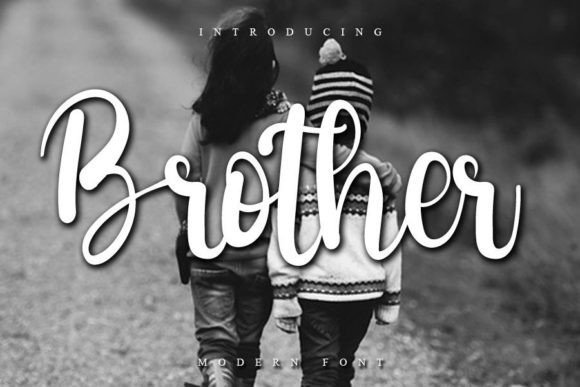
The Perfect Combination: Design and Innovation
As a designer, have you ever stumbled upon a font that makes your ideas come alive? A font that perfectly complements your creativity, elevating your designs to new heights? For me, that moment was when I discovered the Brother Font. This beautiful font is a game-changer for designers, offering a fresh and unique touch to any project.
The Brother Font is designed to be versatile, suitable for a wide range of design purposes such as YouTube banners, cover logo mockups, wedding invitations, ID cards, flyers, and more. Its simplicity and uniqueness make it an invaluable asset for designers looking to take their business to the next level.
With the Brother Font, you’ll be able to give your designs a professional and eye-catching look, setting you apart from the competition and driving your business forward.
Key Features of Brother Font
- Unique Character Set: Brother Font features a unique character set that includes a wide range of symbols, glyphs, and ligatures, making it ideal for creative and technical applications.
- Language Support: Brother Font supports a wide range of languages, including Latin, Cyrillic, Greek, and many non-Latin scripts, making it a versatile choice for global applications.
- Font Style: Brother Font is available in multiple styles, including regular, bold, italic, and bold-italic, allowing users to customize the font to suit their needs.
- Scalability: Brother Font is designed to be highly scalable, allowing it to be used at a wide range of sizes and resolutions without losing its clarity or legibility.
Brother Font Review
As a designer, I’ve had the chance to work with Brother Font, and I must say it’s an interesting typeface. Here are my honest thoughts on what works well and what doesn’t.
- Unique Personality: Brother Font has a distinctive personality that’s perfect for creative projects that need a dash of whimsy.
- High Legibility: The font is highly legible, making it a great choice for body text in various applications.
- Consistent Quality: Brother Font’s quality is consistent throughout, ensuring a professional look in your designs.
- Limited Compatibility: Brother Font may not work well in all operating systems or software, which can be frustrating for designers.
- Not Ideal for Body Text: While the font is legible, it may not be the best choice for large blocks of text, as it can get overwhelming.
- Not Suitable for Formal Projects: Brother Font’s playful nature makes it less suitable for formal or professional projects.
Brother Font is a solid choice for designers who want to add some personality to their projects. While it has its limitations, it’s a great option for creative projects or situations where a more playful tone is needed. With a little caution and consideration for its limitations, Brother Font can be a valuable addition to your design toolkit.
Practical Application Guide for Brother Font
Tips for Getting the Most Out of Brother Font
To get the most out of Brother Font, consider the following tips:
– Use it for titles, headings, or emphasis to add a touch of elegance to your designs.
– Experiment with different font sizes and styles to create a visually appealing hierarchy.
– Pair Brother Font with other fonts to create a unique and harmonious typography.
Brother Font is commonly used in:
– Business cards and marketing materials
– Fashion and beauty branding
– Luxury and high-end design projects
Brother Font offers a range of font sizes and styles, including bold, italic, and bold italic. The font also includes various optical sizes, such as text, caption, and display sizes, to ensure optimal legibility at different scales.